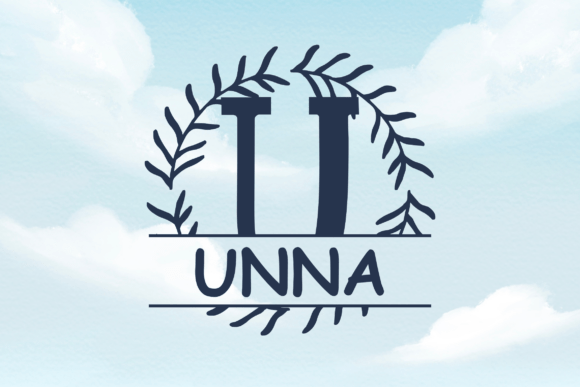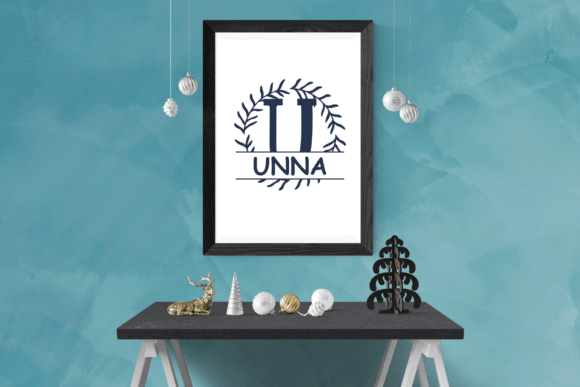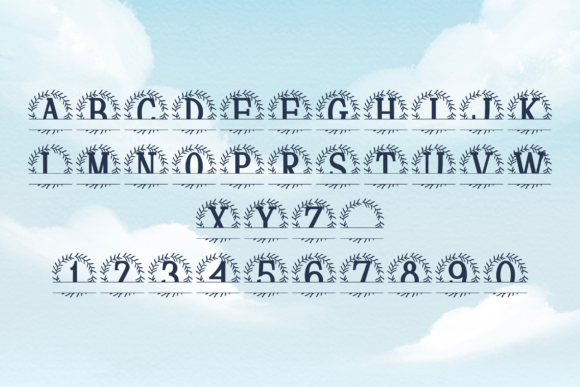
Introduction to Olensia Split Monogram Font Font
Fonts play a crucial role in design, and the Olensia Split Monogram Font font is a typeface that brings both character and versatility to any project. Whether you’re working on a branding project, a website, or a print design, the Olensia Split Monogram Font font offers a unique style that can elevate your work.
Meet Olensia Split, the Split Monogram Font Olensia Split Monogram turns simple initials into refined emblems with a clean center split for names, dates, or short words.
The strokes are smooth and balanced, so letters stay clear at any size Because counters remain open and curves stay clean, tiny tags print crisp while large signage looks polished and gift-ready.
Key Features of Olensia Split Monogram Font Font
Why Choose Olensia Split Monogram Font Font?
The Olensia Split Monogram Font font is more than just a typeface – it’s a design tool that helps you communicate your message with style and clarity. Its unique character set and versatile design make it suitable for a wide range of applications, from elegant invitations to bold headlines.
With its carefully crafted letterforms and balanced proportions, the Olensia Split Monogram Font font ensures readability and visual appeal across all mediums.
What makes Olensia Split Monogram Font font special?
The Olensia Split Monogram Font font stands out with its unique design, exceptional readability, and versatility across various design applications.